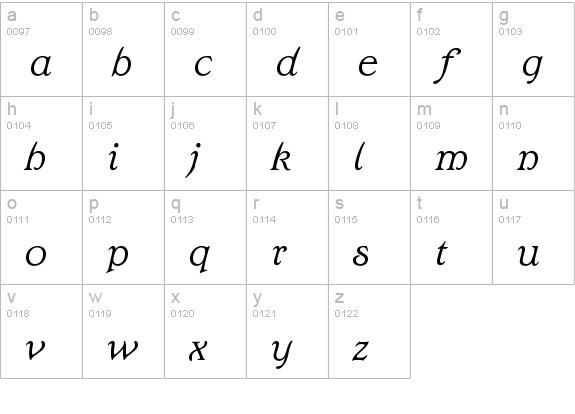
EdwardianEF-LightIta Font Details
EdwardianEF-LightIta is a beautiful and elegant font that perfectly captures the essence of the Edwardian era. With its delicate curves and graceful strokes, this font exudes a sense of sophistication and refinement. It is the perfect choice for adding a touch of vintage charm to any design project. Designed with a touch of calligraphy, EdwardianEF-LightIta adds a unique and artistic flair to any text. Its light weight lends a sense of delicacy and grace, making it ideal for titles, headings, and invitations. Whether used in print or digital media, this font will surely captivate and enchant readers. But what sets EdwardianEF-LightIta apart is not only its aesthetic appeal but also its accessibility. This font is freely available to download at FontsMarket.com, making it accessible to designers, students, and enthusiasts alike. With just a few clicks, you can bring the timeless beauty of the Edwardian era into your own creative projects. Whether you are working on a wedding invitation, a logo, or a vintage-inspired poster, EdwardianEF-LightIta will undoubtedly elevate your design to new heights. Its versatility and classic appeal make it a must-have for anyone looking to add an air of elegance and sophistication to their work. So why wait? Download EdwardianEF-LightIta today and unleash your creativity. With this free font at your fingertips, you have the power to create stunning designs that will leave a lasting impression. Don't miss out on this opportunity to bring a touch of the past into the present.